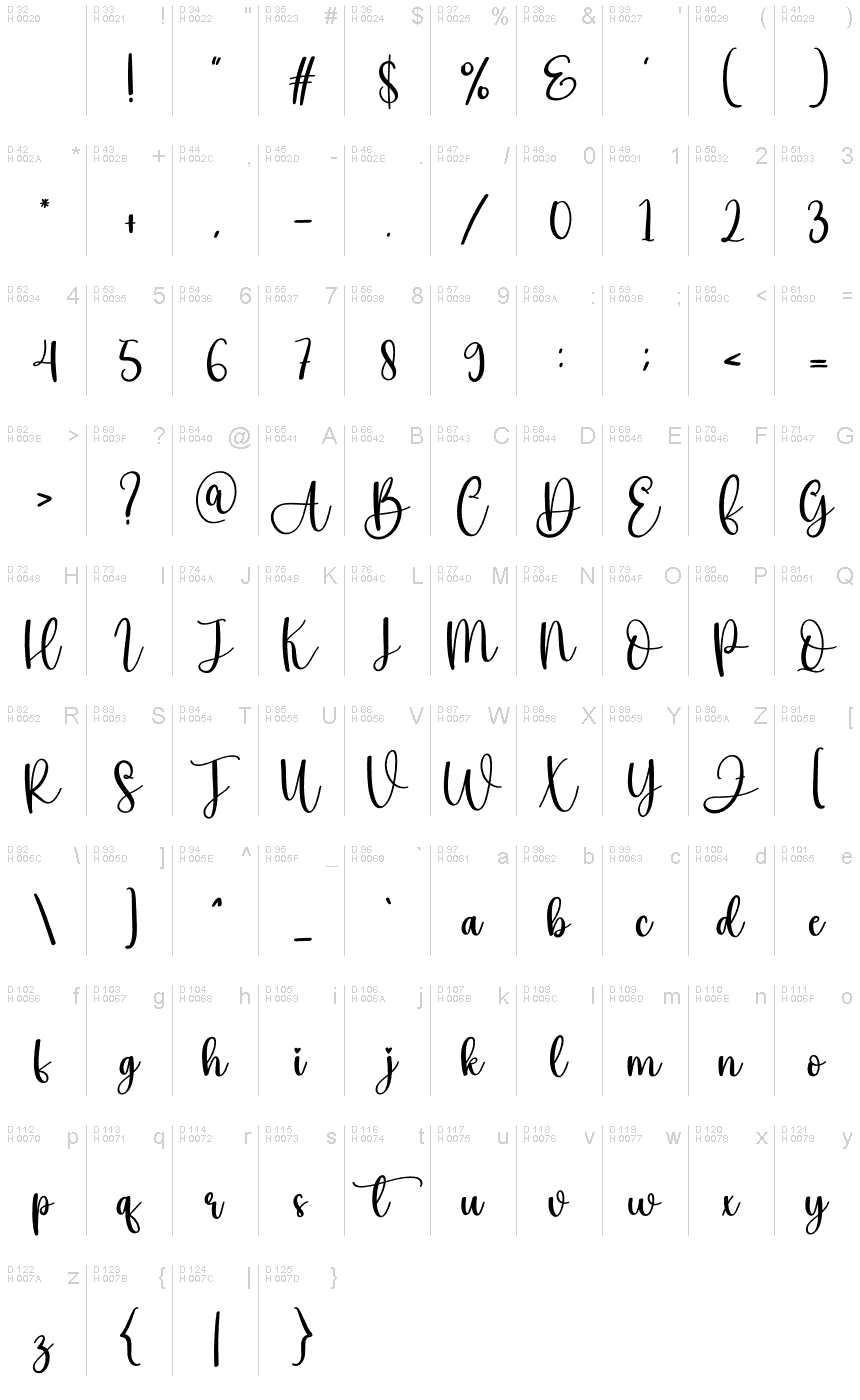
Family Rainbow
Family Rainbow, a stunning calligraphy font by Scratchones. With its semi-light weight, this font exudes elegance and sophistication. Perfect for wedding invitations, greeting cards, and feminine branding projects. Family Rainbow brings a touch of whimsy to any design with its graceful curves and fluid strokes.
Its versatility extends to fashion magazines, beauty blogs, and art prints. Let your creativity shine as you embrace the enchanting swirls of this captivating typeface.
Elevate your designs with Family Rainbow and watch them come alive with a sense of enchantment and charm.